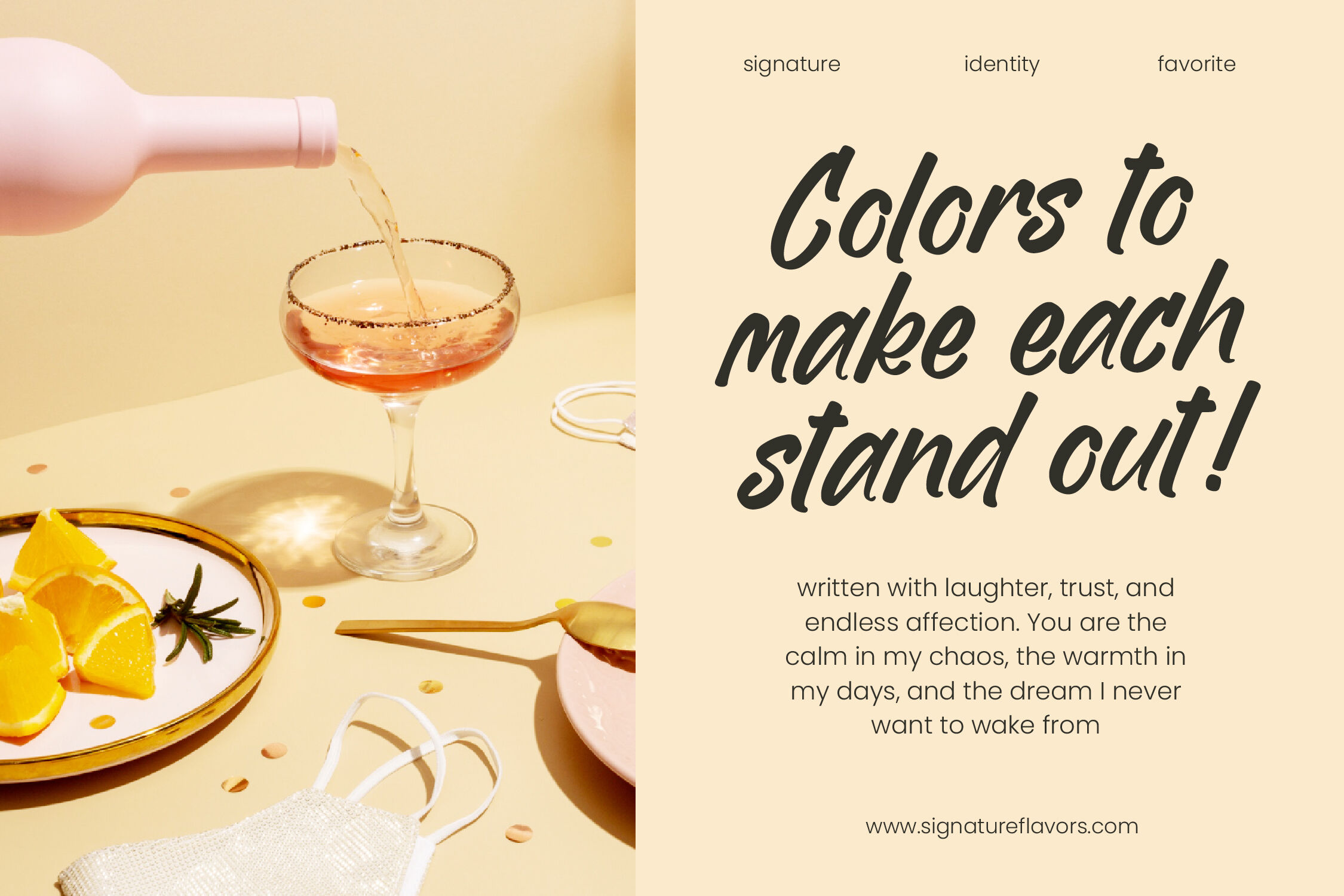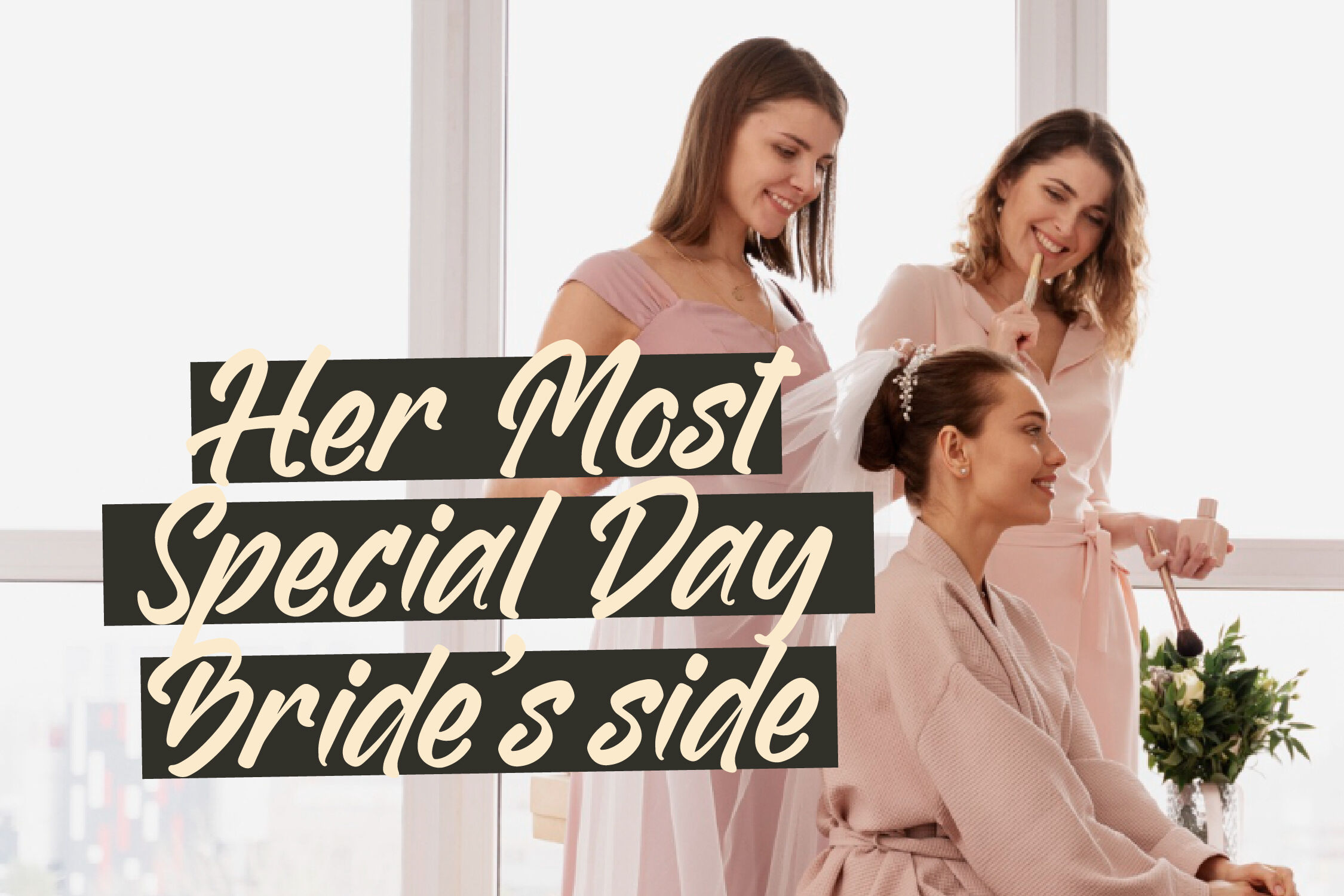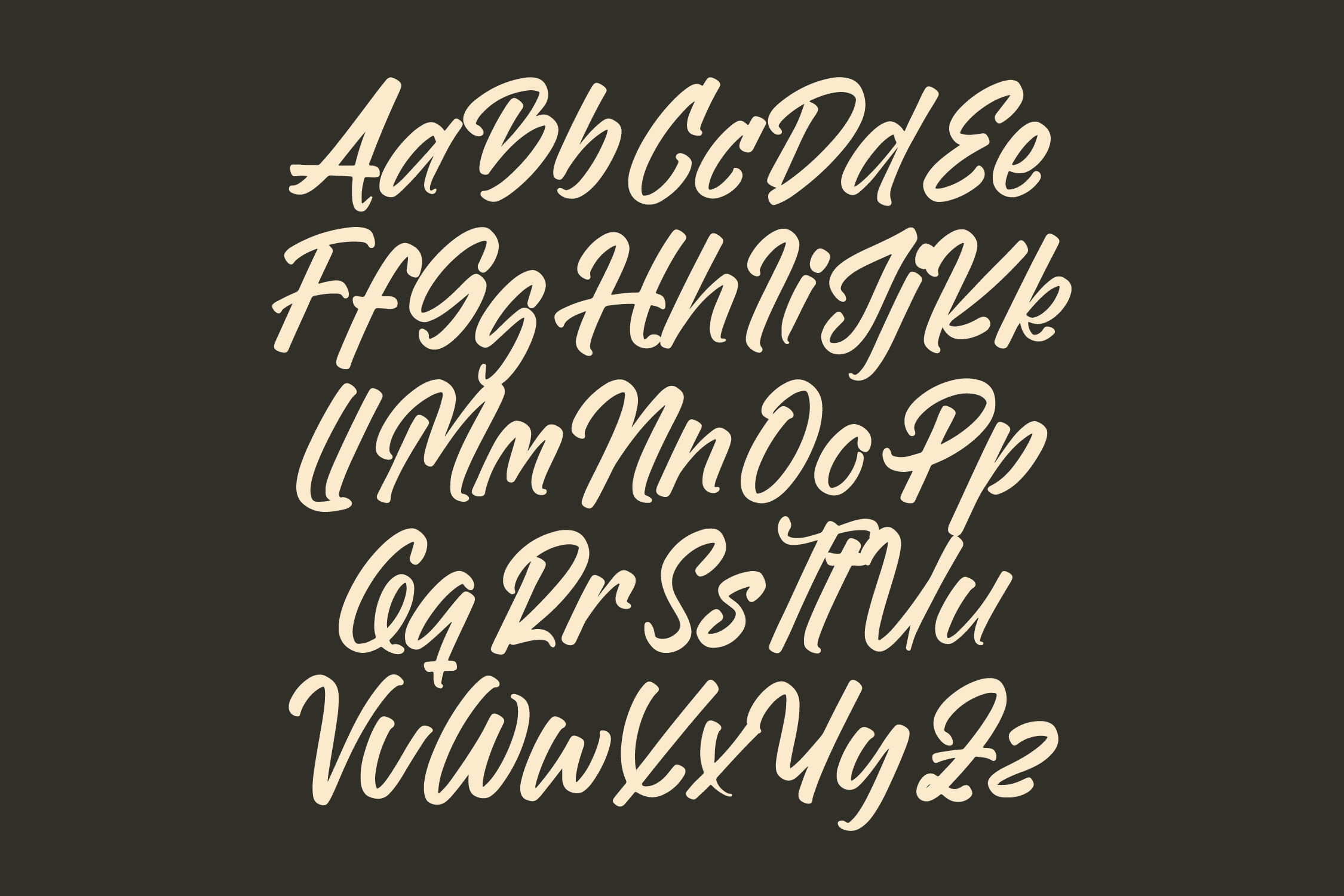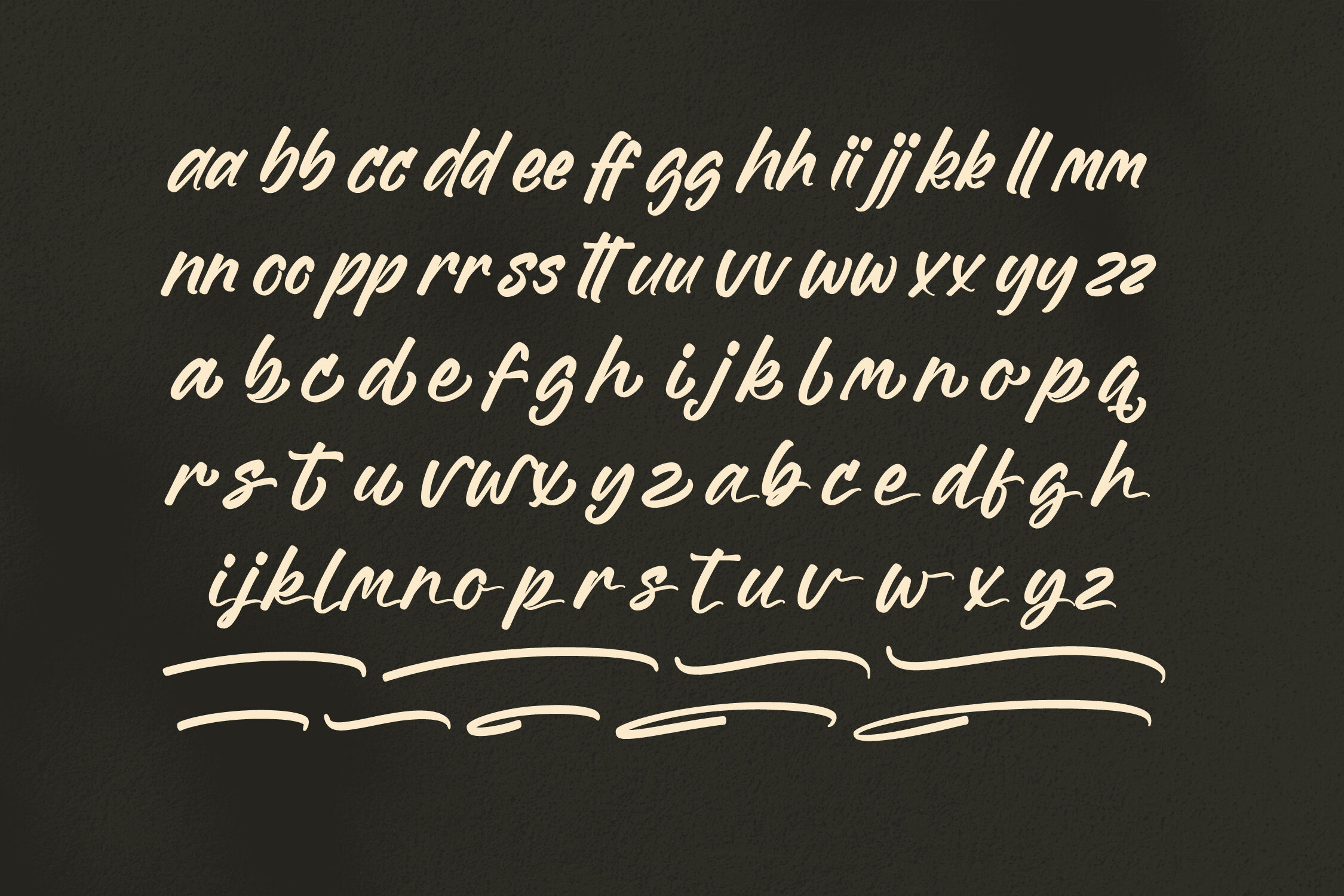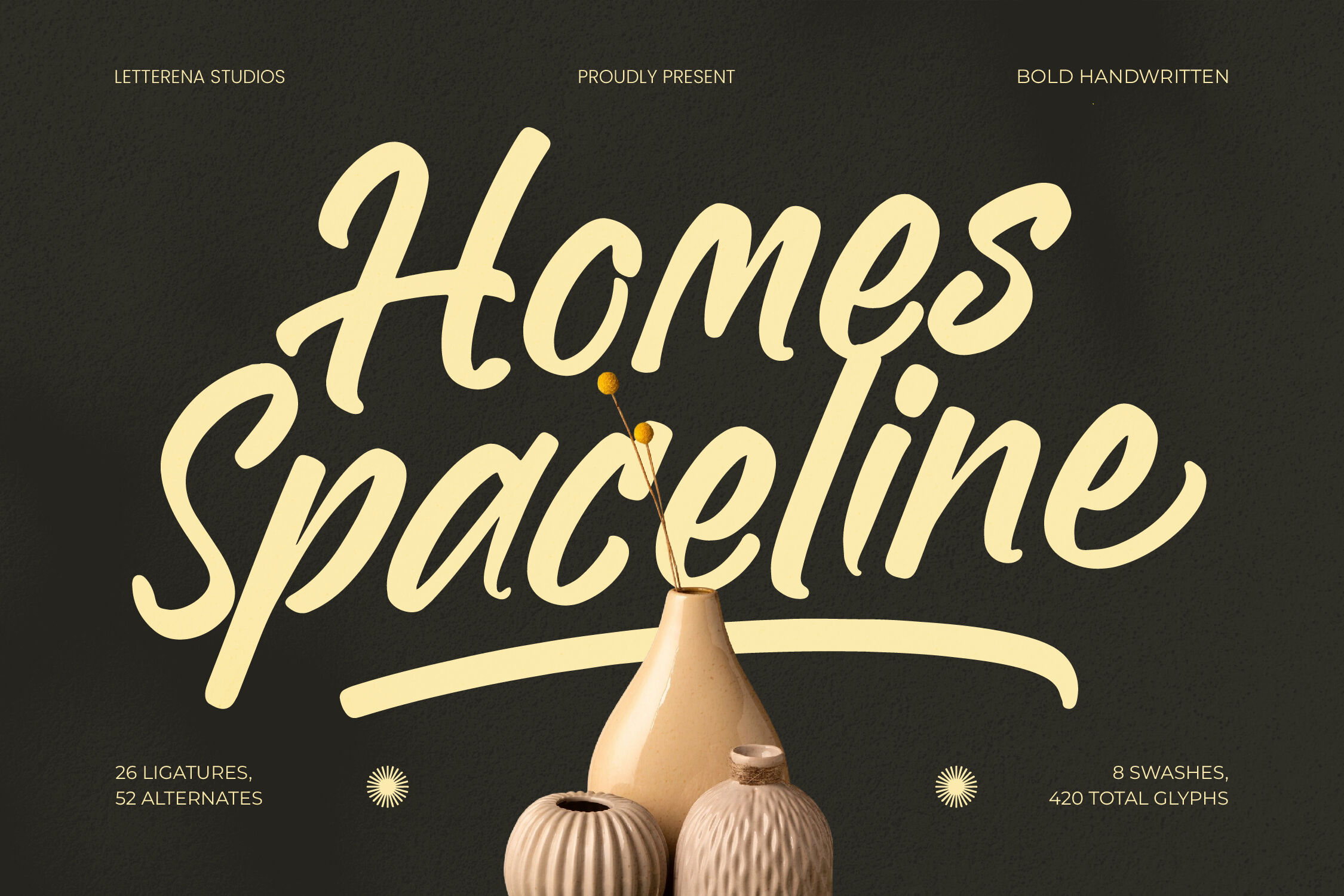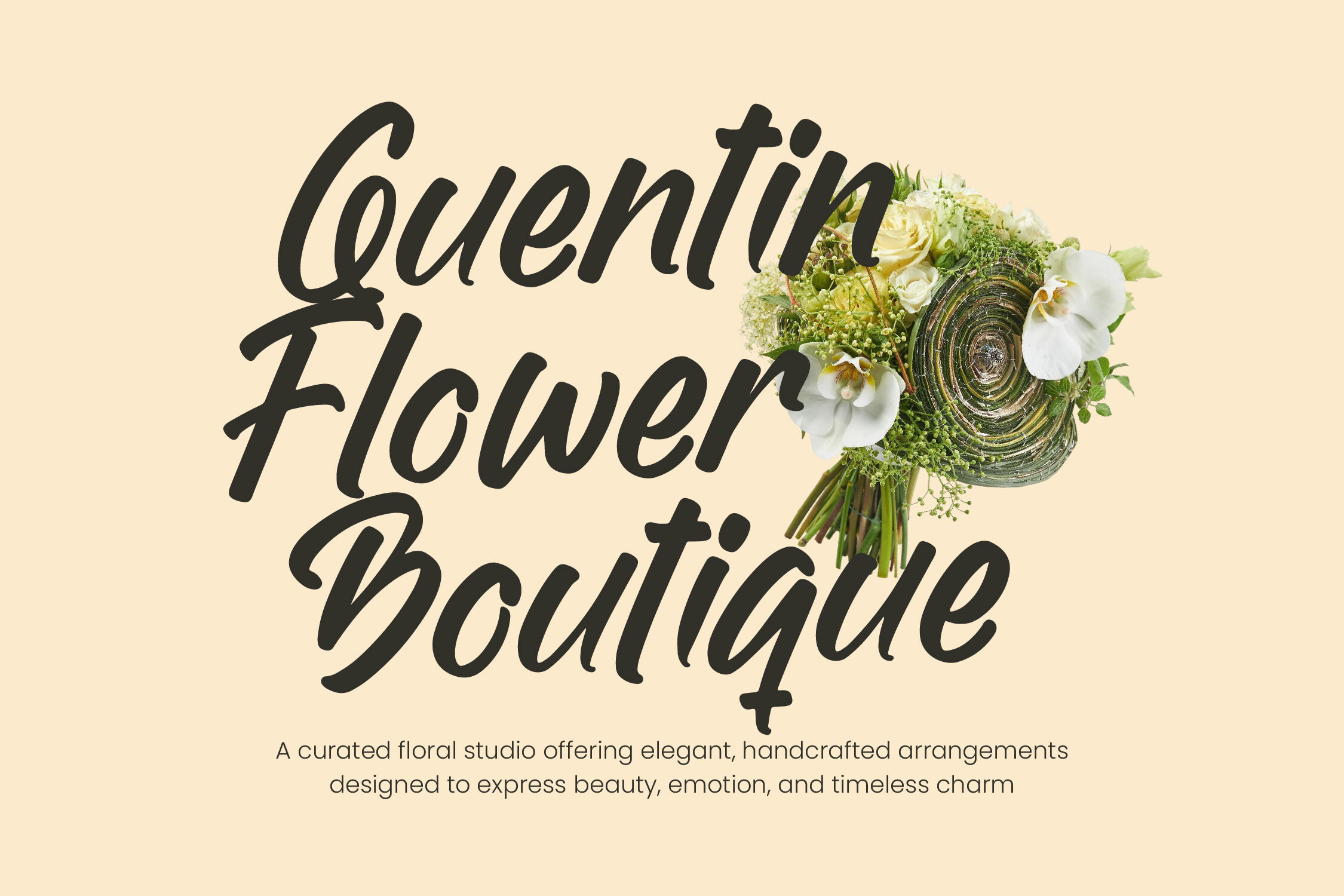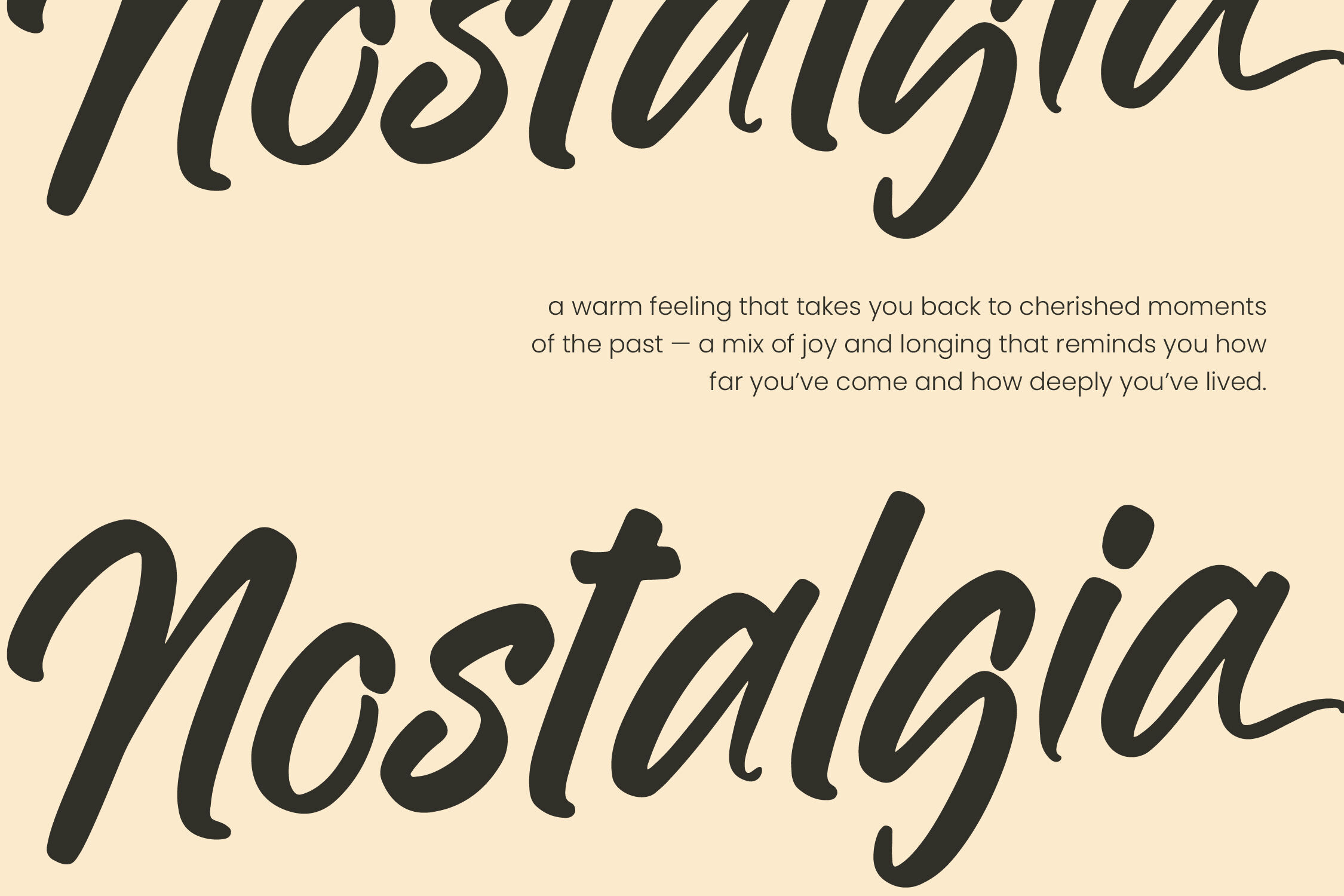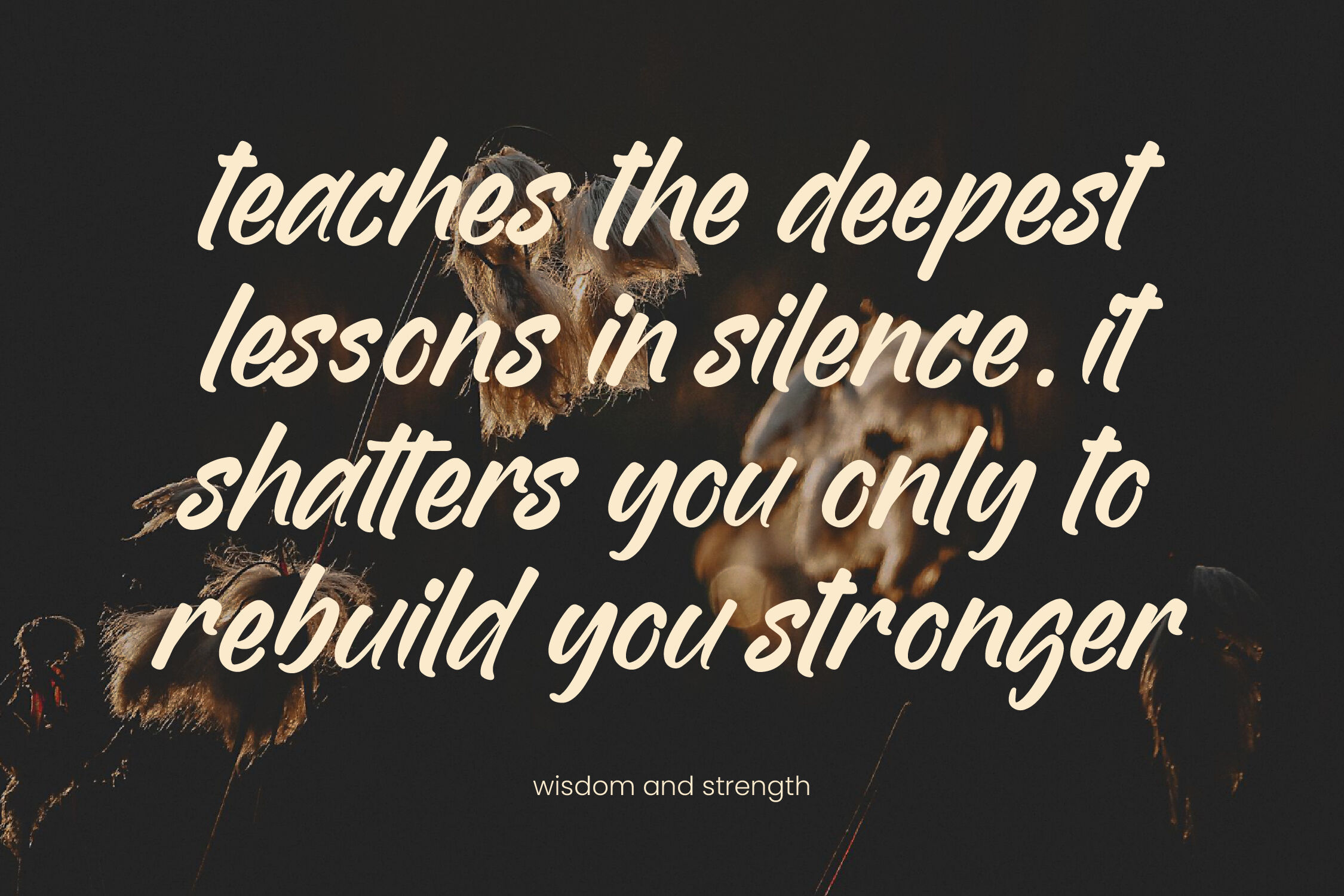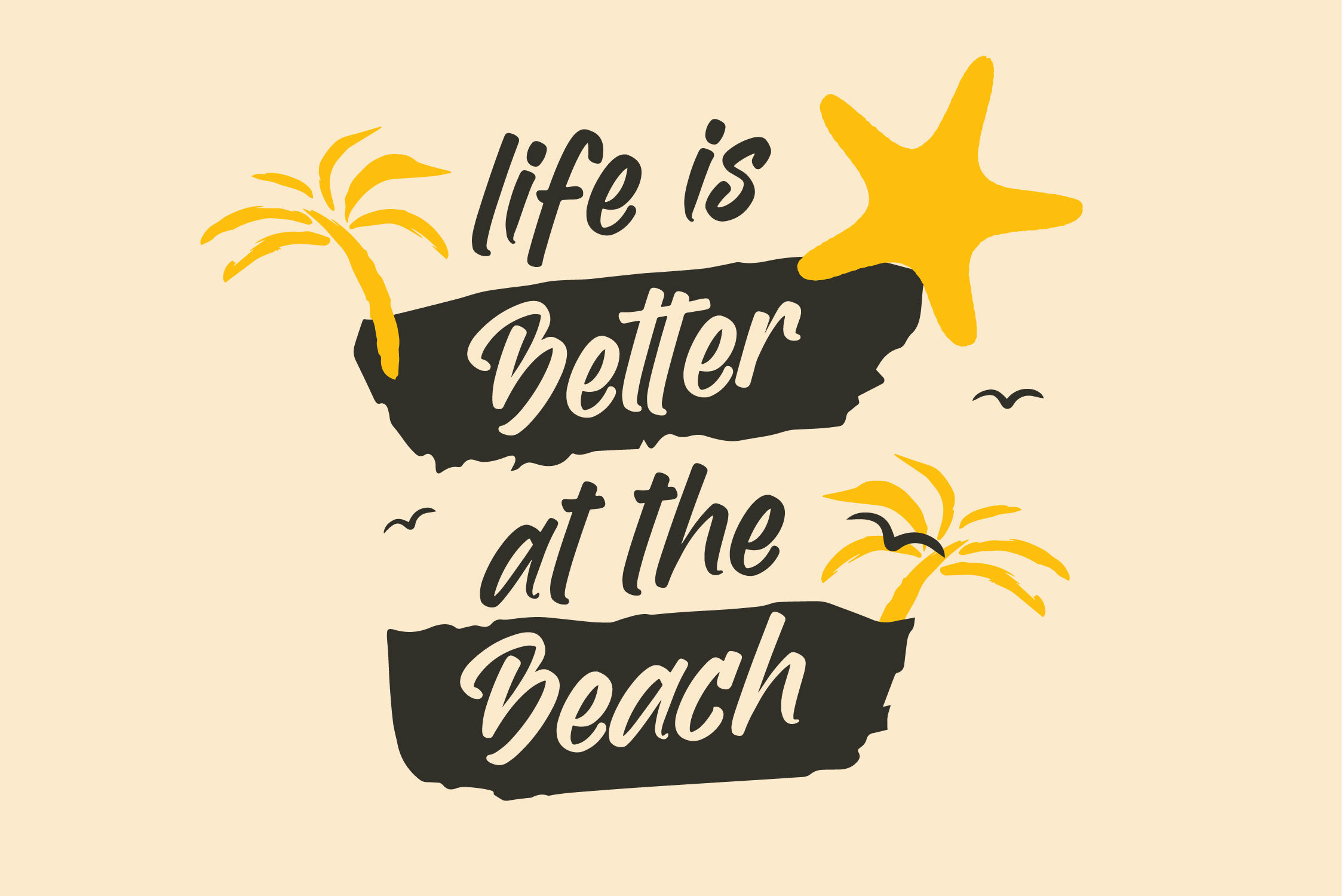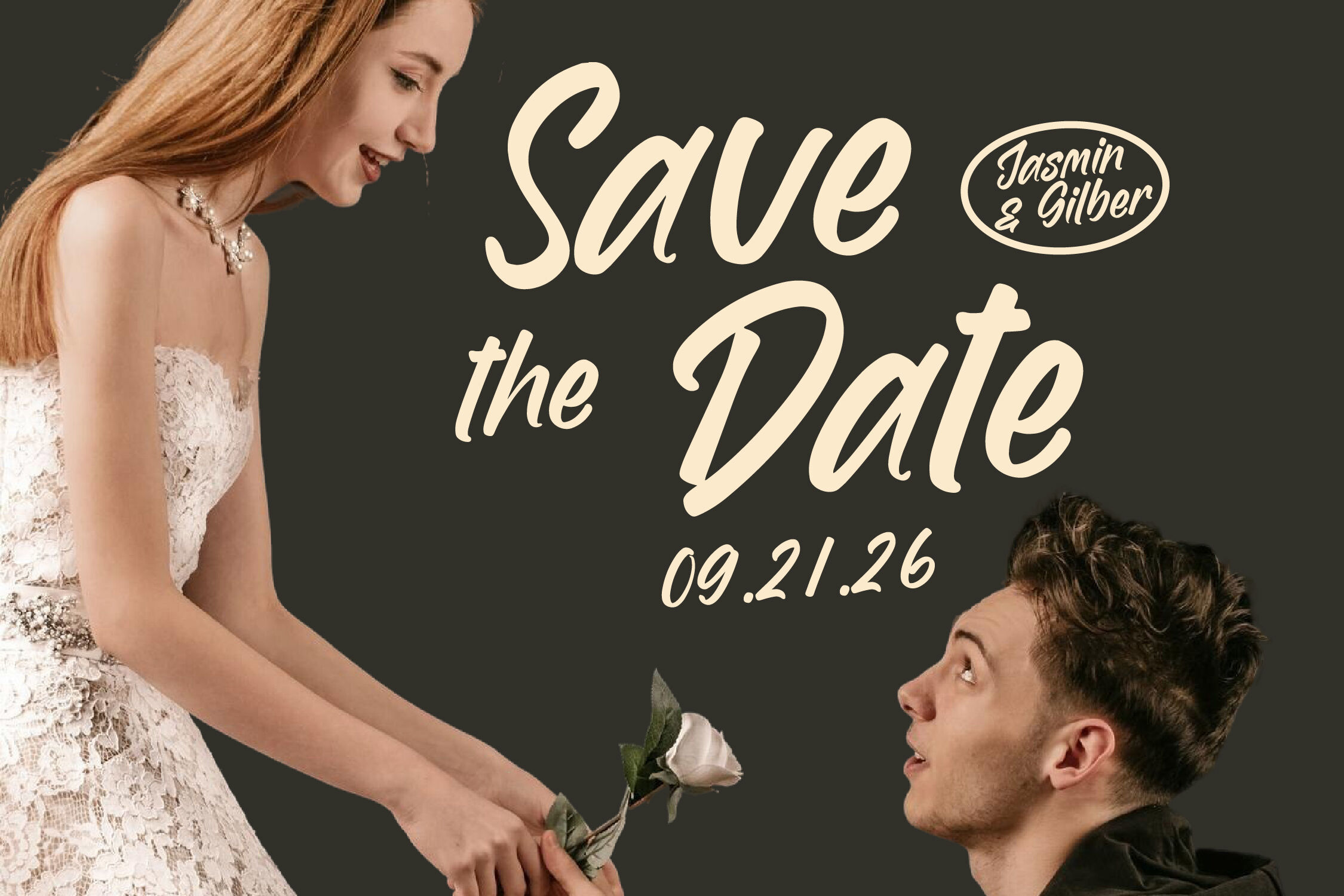
Homes Spaceline - Bold Handwritten Font
Homes Spaceline - Bold Handwritten Font , Homes Spaceline is a bold handwritten script font with a modern and casual style. Featuring 26 ligatures, 52 alternates, and 8 swashes with a total of 420 glyphs, it provides flexibility for creating expressive and unique designs. Perfect for branding, posters, logos, packaging, and social media content, Homes Spaceline adds a confident handwritten touch with smooth curves and a natural brush flow.